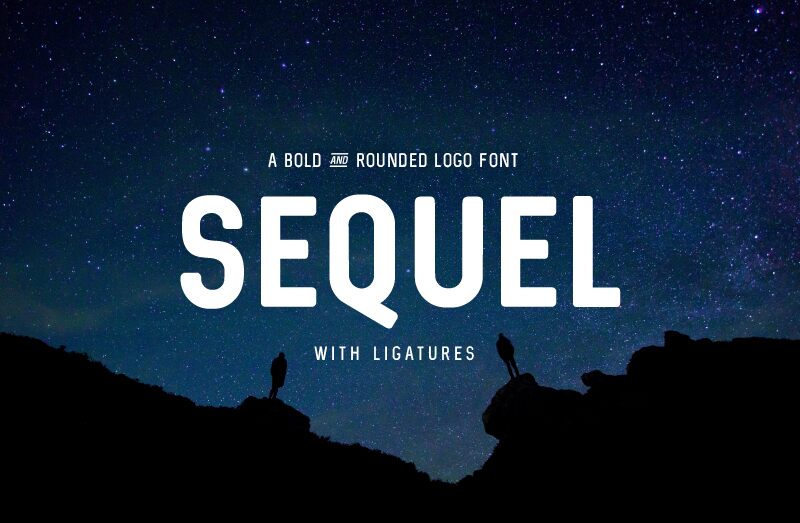
Sequel
Sequel, crafted by the skilled hand of Philip Trautmann, stands out with its sans serif elegance and semi-bold weight, harmoniously combining contemporary flair with functional precision. The condensed width of Sequel not only offers an aesthetically pleasing tightness to text but also ensures a striking presence on the page or screen.
The font's clean lines and unembellished forms give it a modern appeal that is versatile across various mediums. From bold advertising campaigns to chic editorial layouts, Sequel’s minimalist beauty is adaptable without sacrificing personality. Whether deployed in headlines or branding projects, this font promises to deliver readability with a stylish edge.
Its suitability for digital and print mediums alike makes Sequel an asset for designers seeking a typeface that marries visual impact with practical application. The thoughtful design by Trautmann ensures that Sequel will elevate creative projects with its distinctive yet approachable character.
With "Sequel" I wanted to design a multifunctional Typeface. I created Ligatures for "The" and "of", so you just need to type 'the' or 'of" and it automatically converts it to my ligatures.